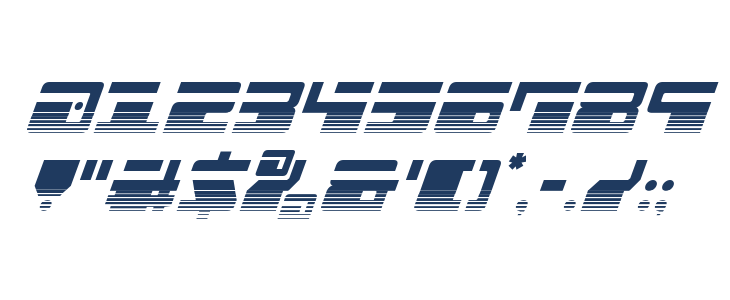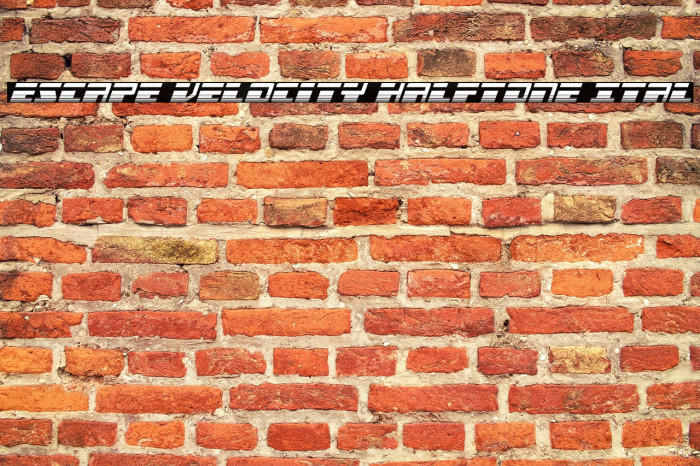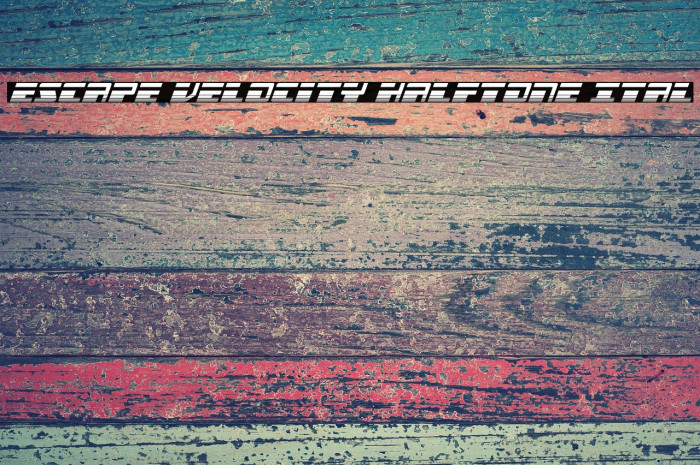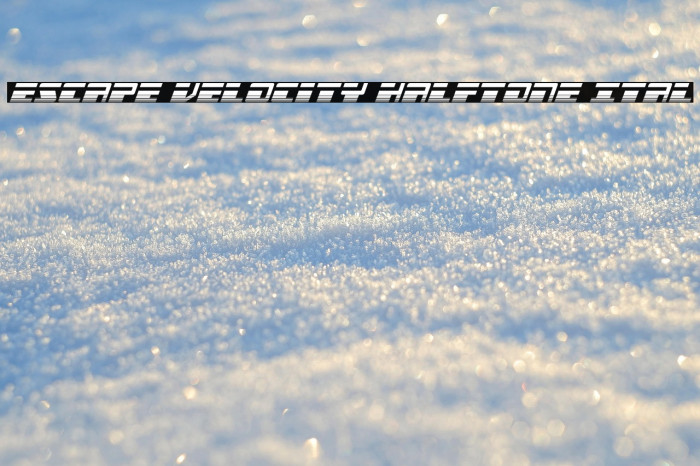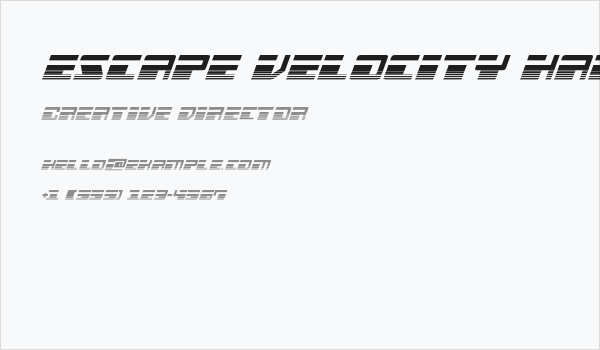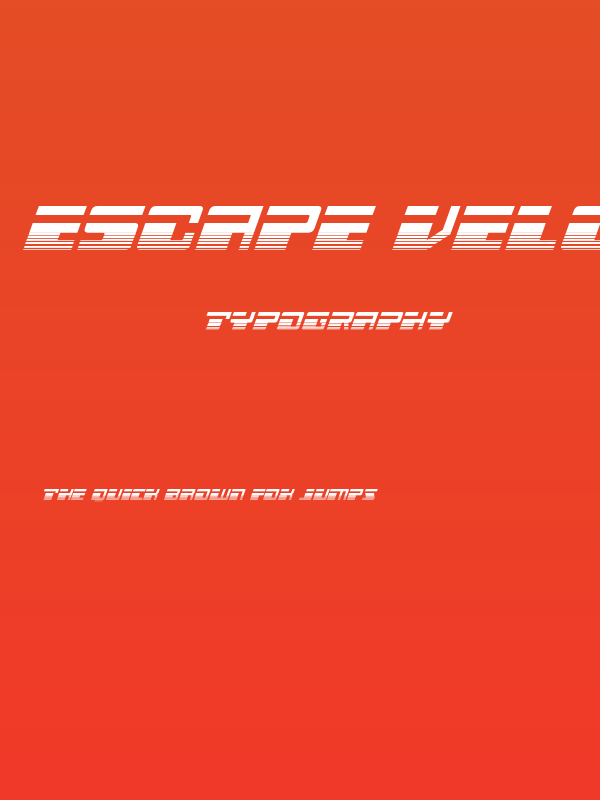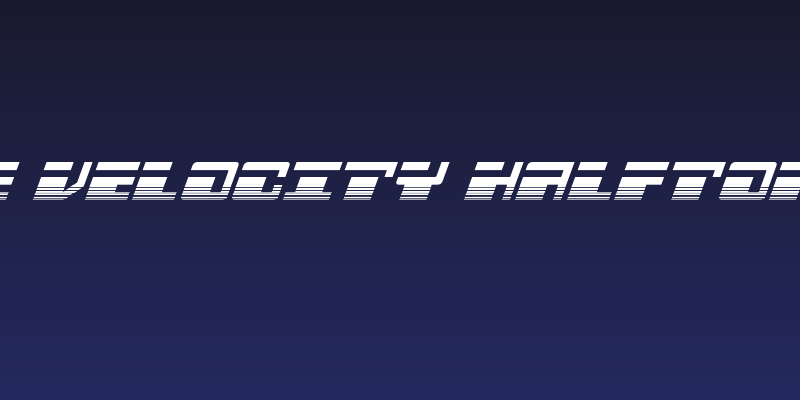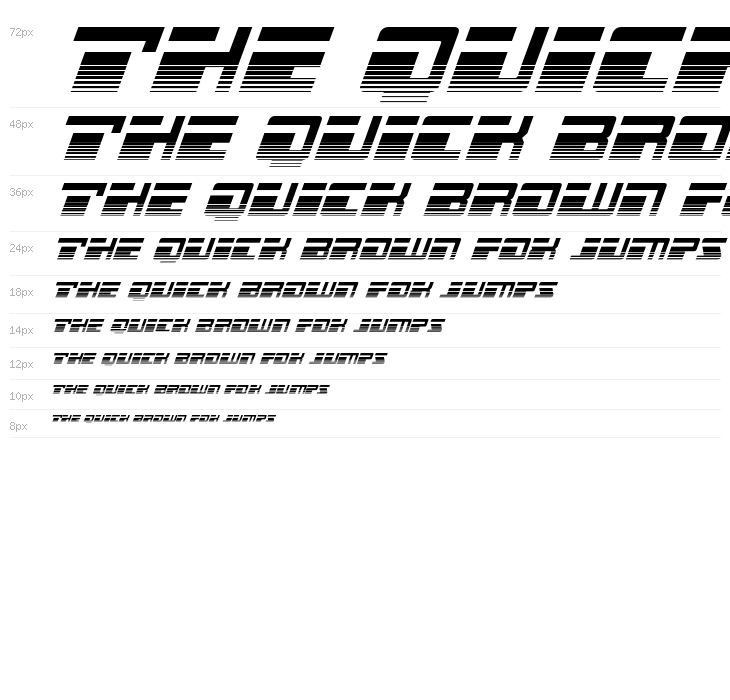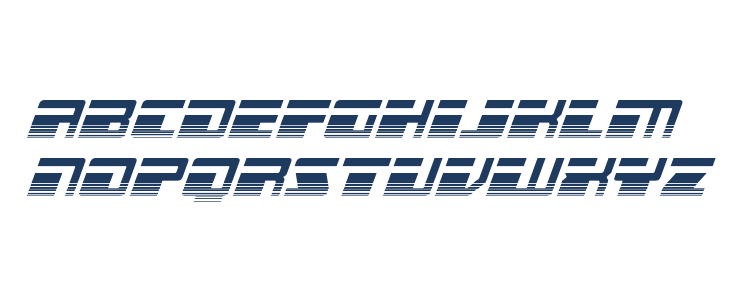
Escape Velocity Halftone Ital Font
Escape Velocity Halftone Ital Description
This font features a futuristic and dynamic design, characterized by its bold, italicized letters with a halftone effect. The characters are constructed with horizontal lines that create a sense of motion and speed, making it ideal for projects that require a modern and energetic look. The uppercase and lowercase letters maintain a consistent style, with numbers and special characters following the same design principles. The font's unique appearance is suitable for eye-catching headlines and creative displays.
| Proposed Projects | Perfect for sci-fi themed posters, video game graphics, futuristic branding, and dynamic sports event materials. |